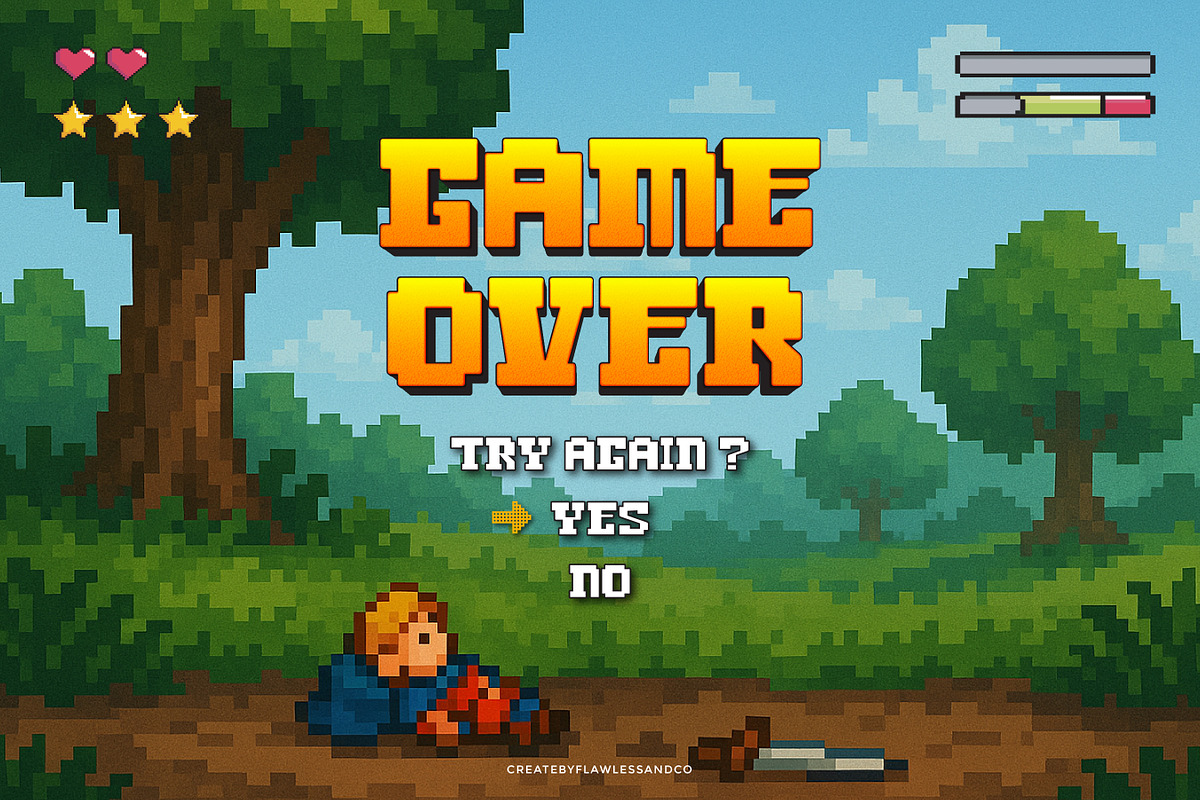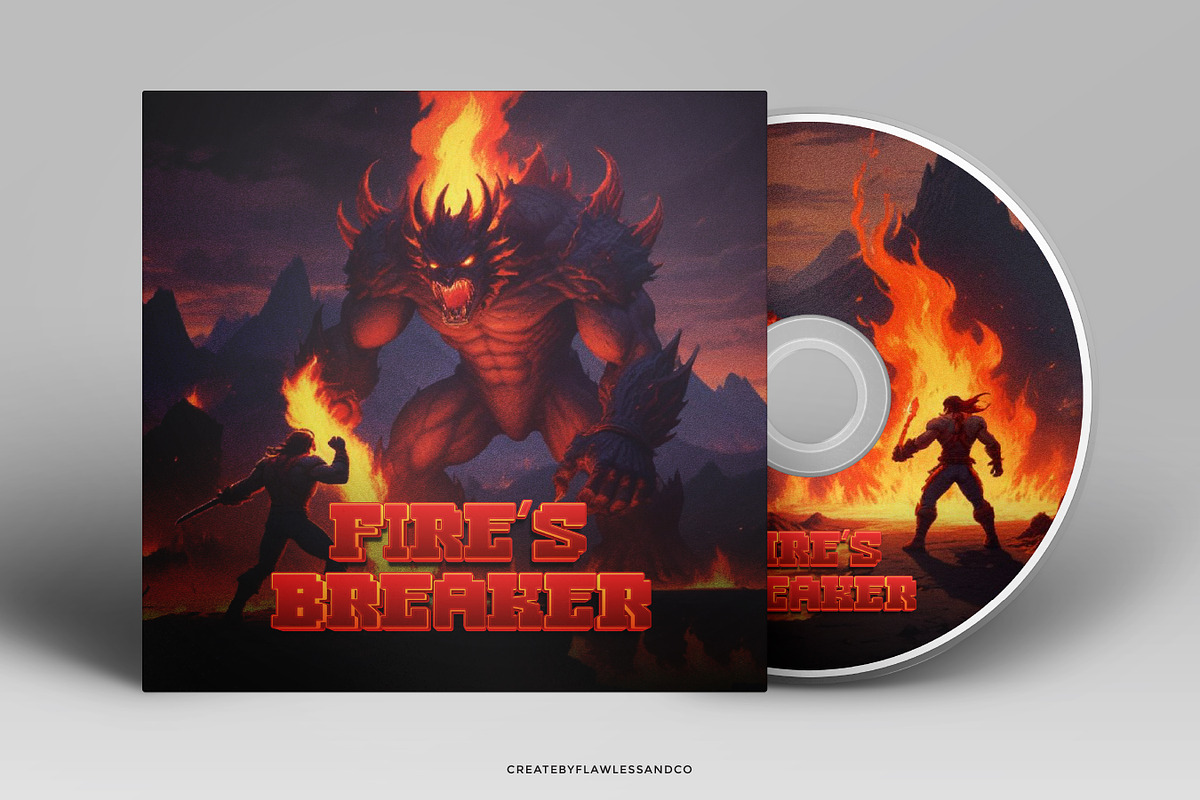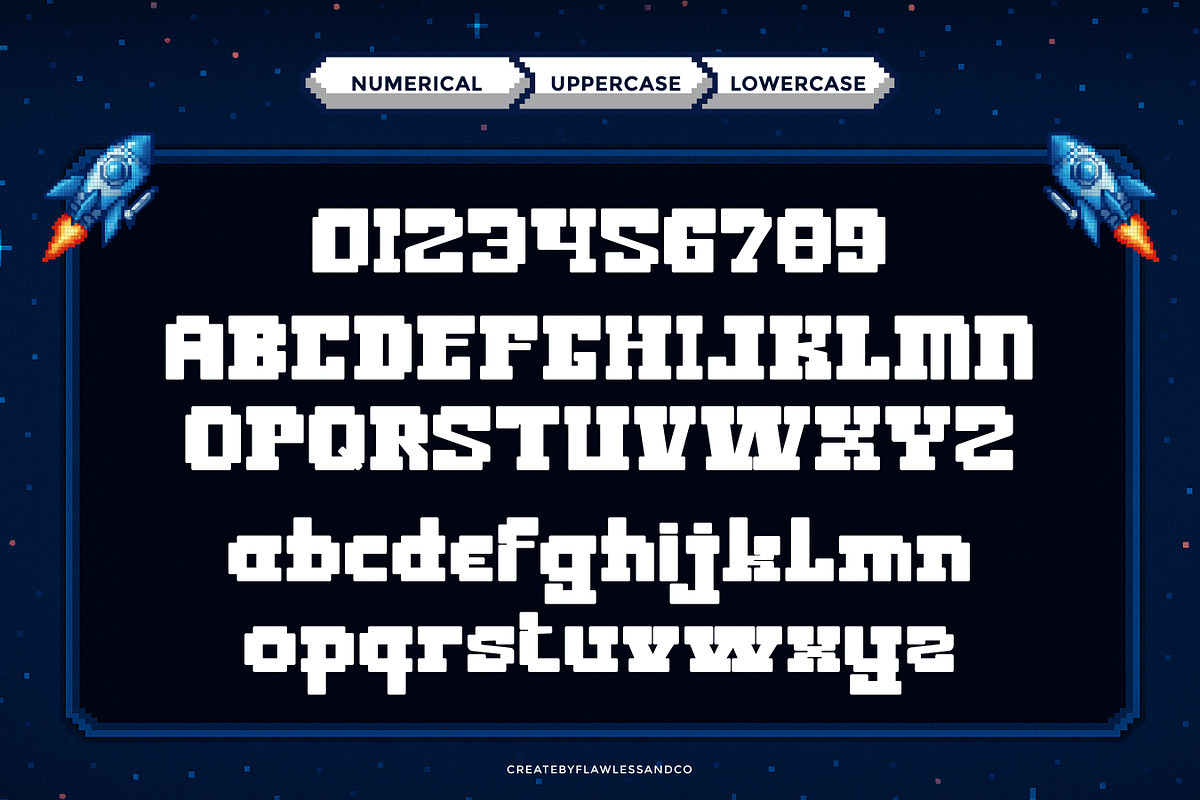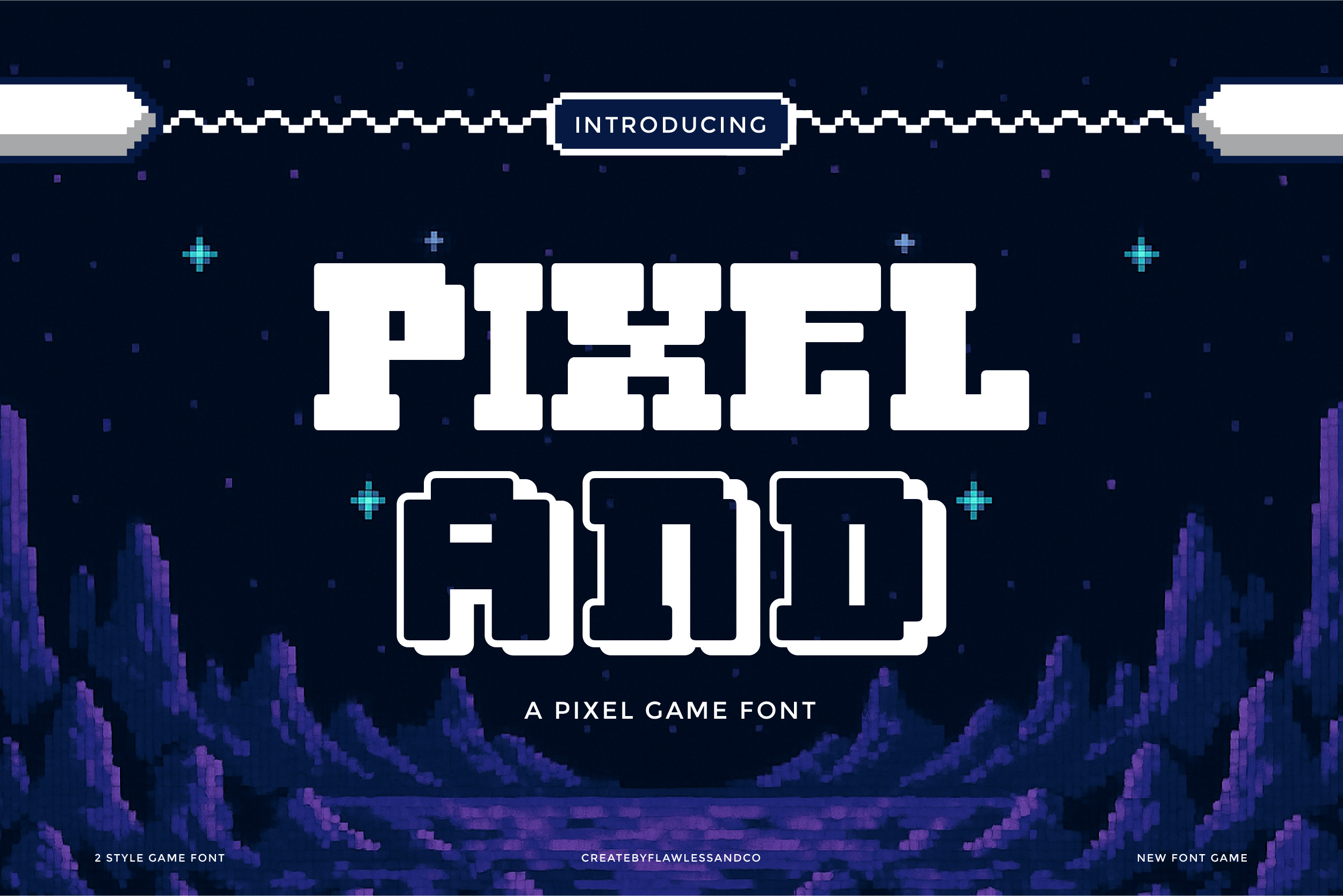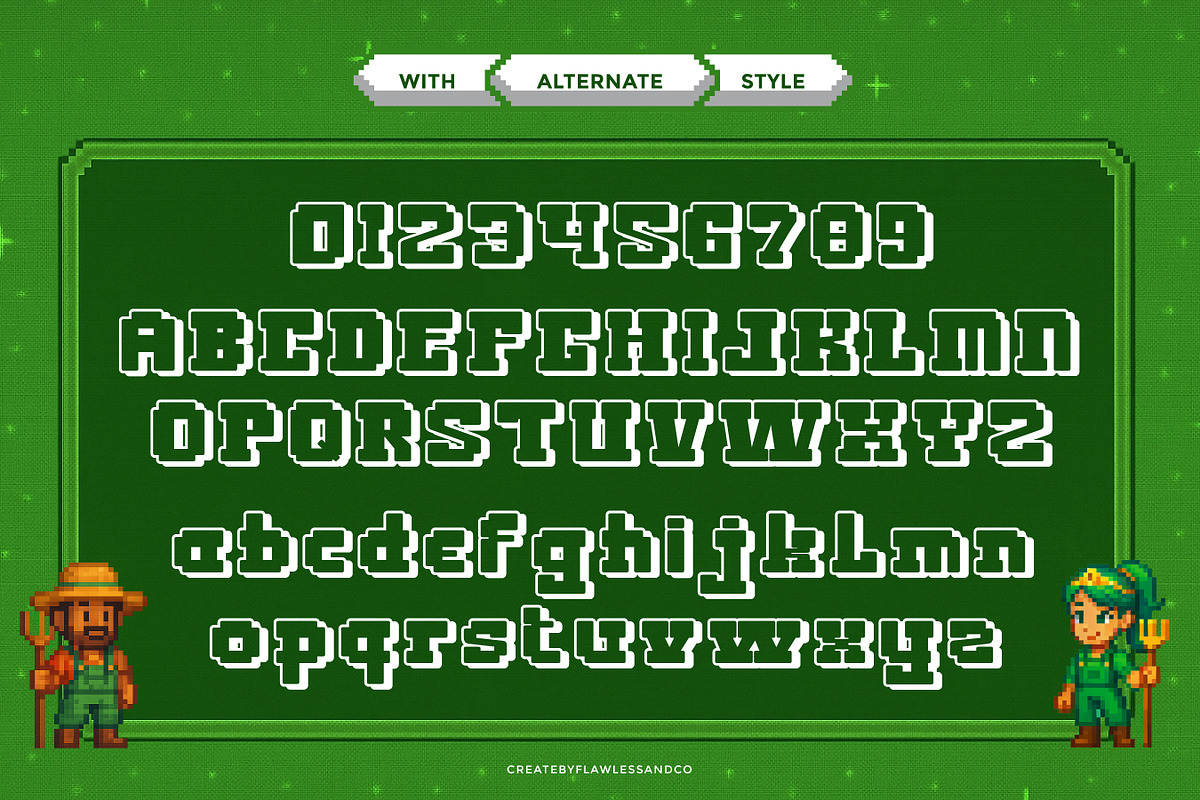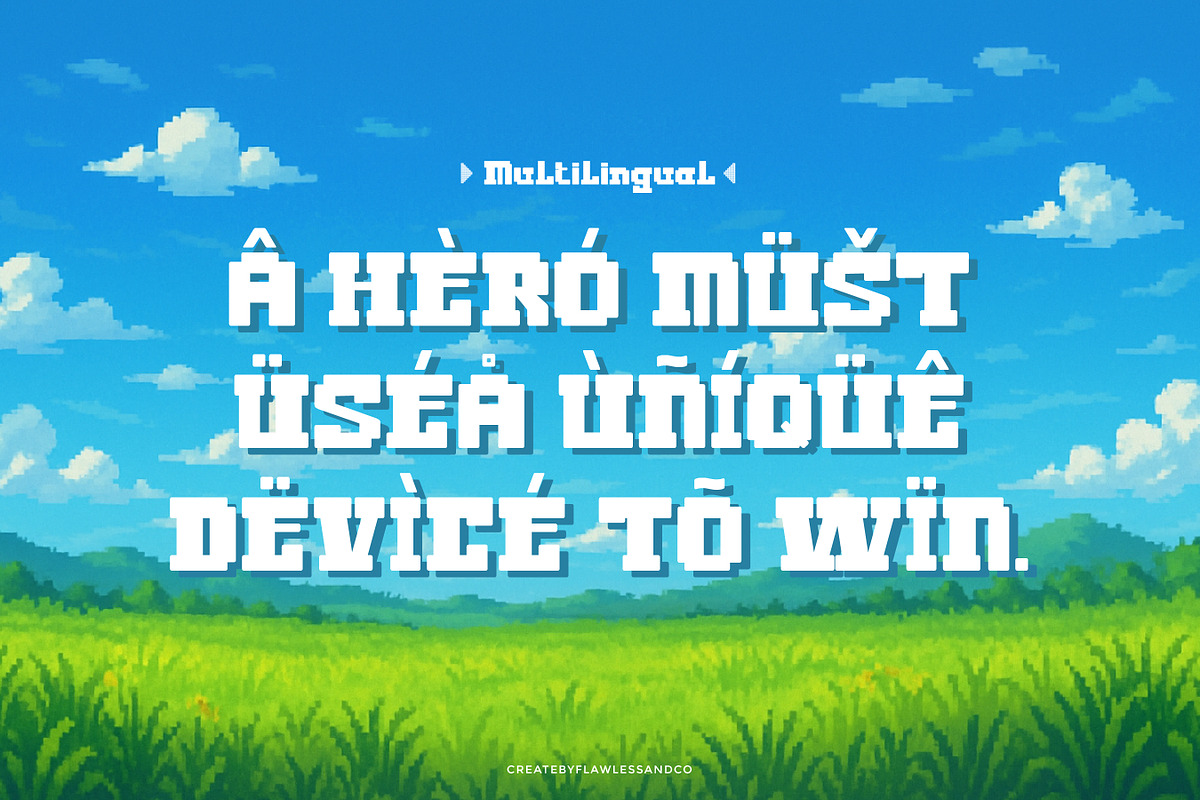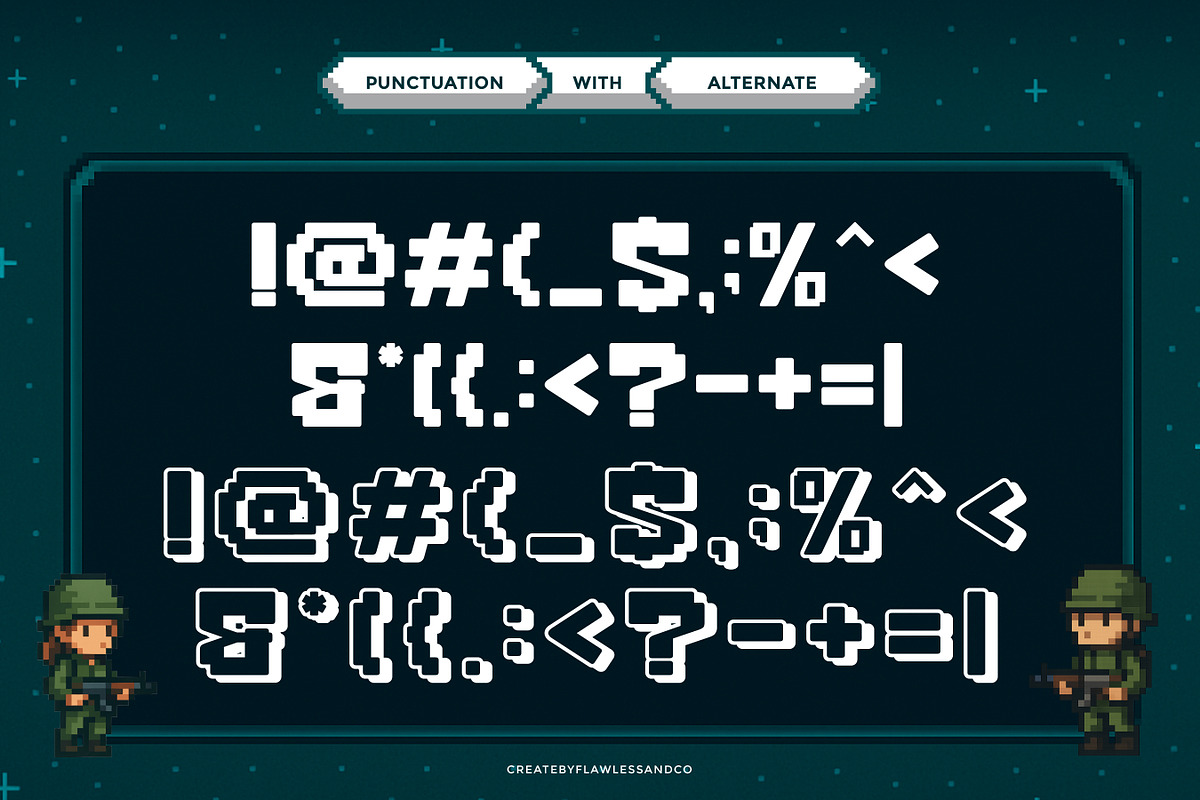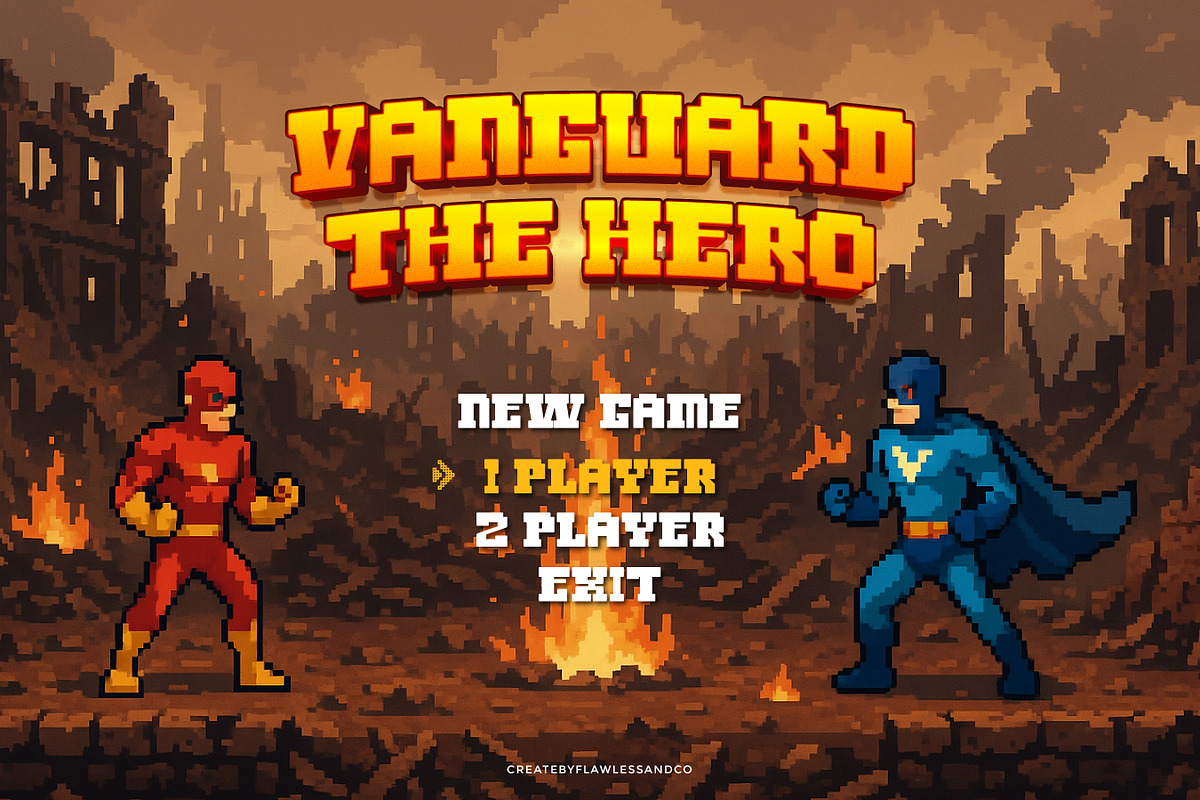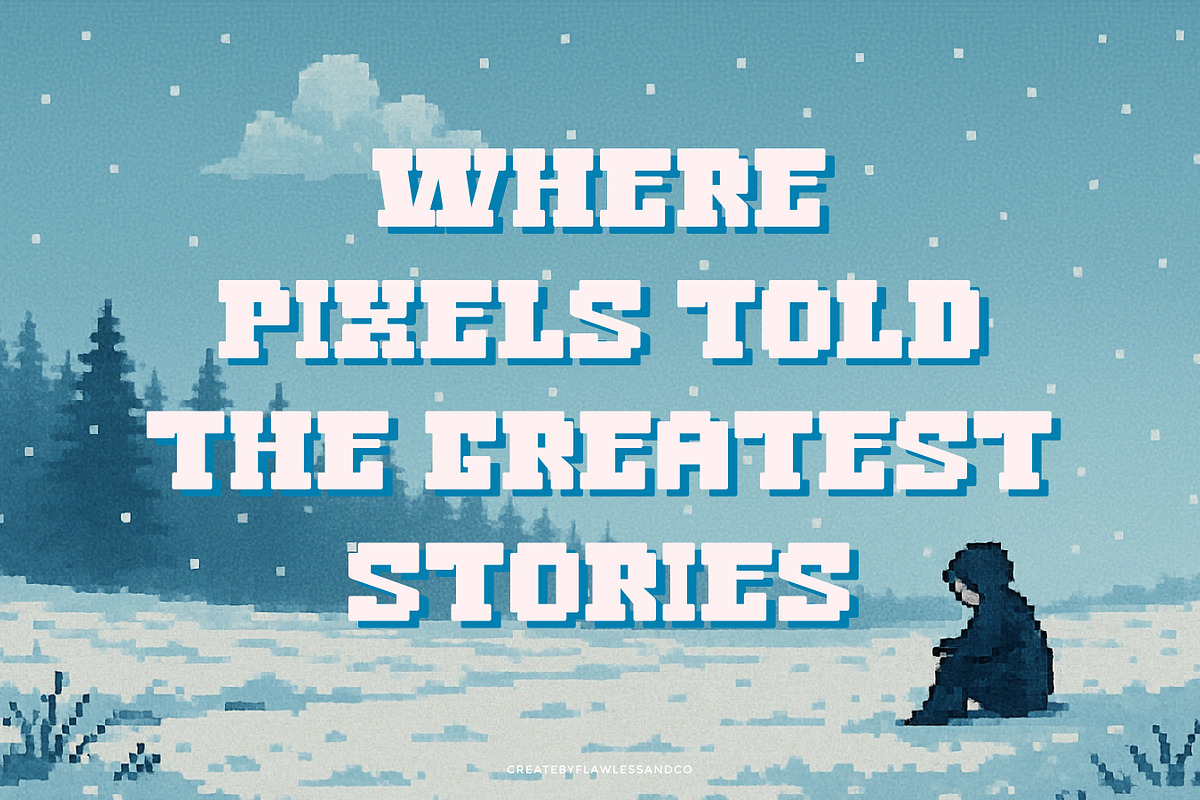
Pixeland - Game Font
PIXELAND – A Bold Retro Pixel Font
PIXELAND is a nostalgic pixel typeface crafted to bring classic video game vibes into your modern designs. With its blocky letterforms and 8-bit aesthetics, PIXELAND is perfect for gaming titles, arcade posters, stream overlays, and any project that craves a playful retro feel. Inspired by the golden era of pixel graphics, PIXELAND is designed to stand out in both digital and print displays. Whether you're developing a pixel-style game or creating retro branding, PIXELAND offers sharp legibility and fun character in every glyph.
Who Should Use PIXELAND?
PIXELAND is made for creatives, designers, and developers who want to add a nostalgic touch to their visuals. It’s the perfect choice for:
- Game developers creating retro-style interfaces or in-game UI
- YouTubers and streamers designing bold, pixel-themed overlays
- Designers working on 8-bit posters, merch, and event branding
- Tech brands looking for a playful and memorable logo
- Anyone who loves the classic charm of pixel art in modern design
A Must-Have Font for Brand, Logo, and Gaming Creators and Designers
PIXELAND is a must-have for creators who want to infuse their branding and visuals with retro charm and digital edge. Whether you're designing game interfaces, pixel-themed logos, or bold display graphics, PIXELAND brings a unique 8-bit personality that stands out in both digital and print formats.
Why Choose PIXELAND for Brand and Logo Projects?
PIXELAND isn’t just a font—it’s a visual throwback that connects your brand to the golden era of gaming and digital design. Its bold, pixel-perfect style captures attention instantly, making it ideal for creating logos, titles, and branding elements with strong nostalgic appeal. Whether you’re building a retro game, launching a YouTube gaming channel, or designing merch for pixel-art lovers, PIXELAND delivers clarity, style, and character in one iconic typeface.
Suitable For:
- Retro-inspired game logos & titles
- YouTube or Twitch gaming channels
- 8-bit or arcade-style branding projects
- App UI or indie game design
- Digital stickers & nostalgic content